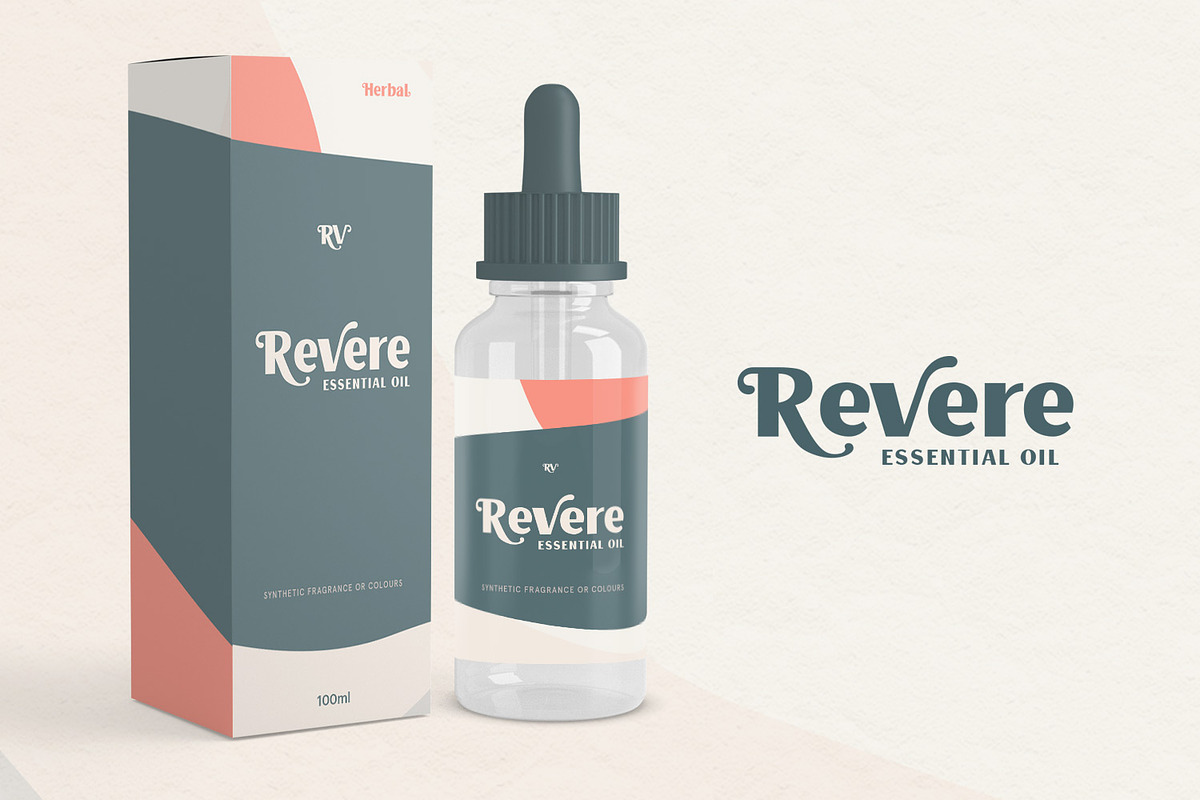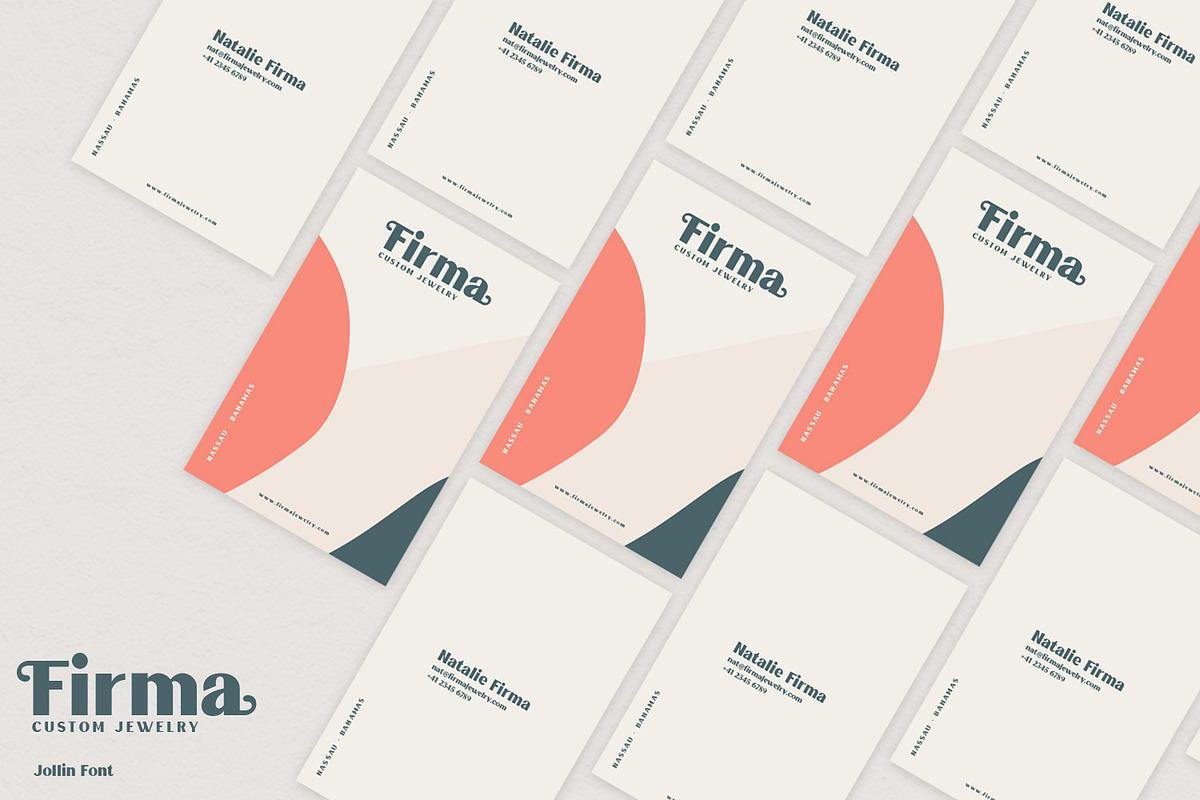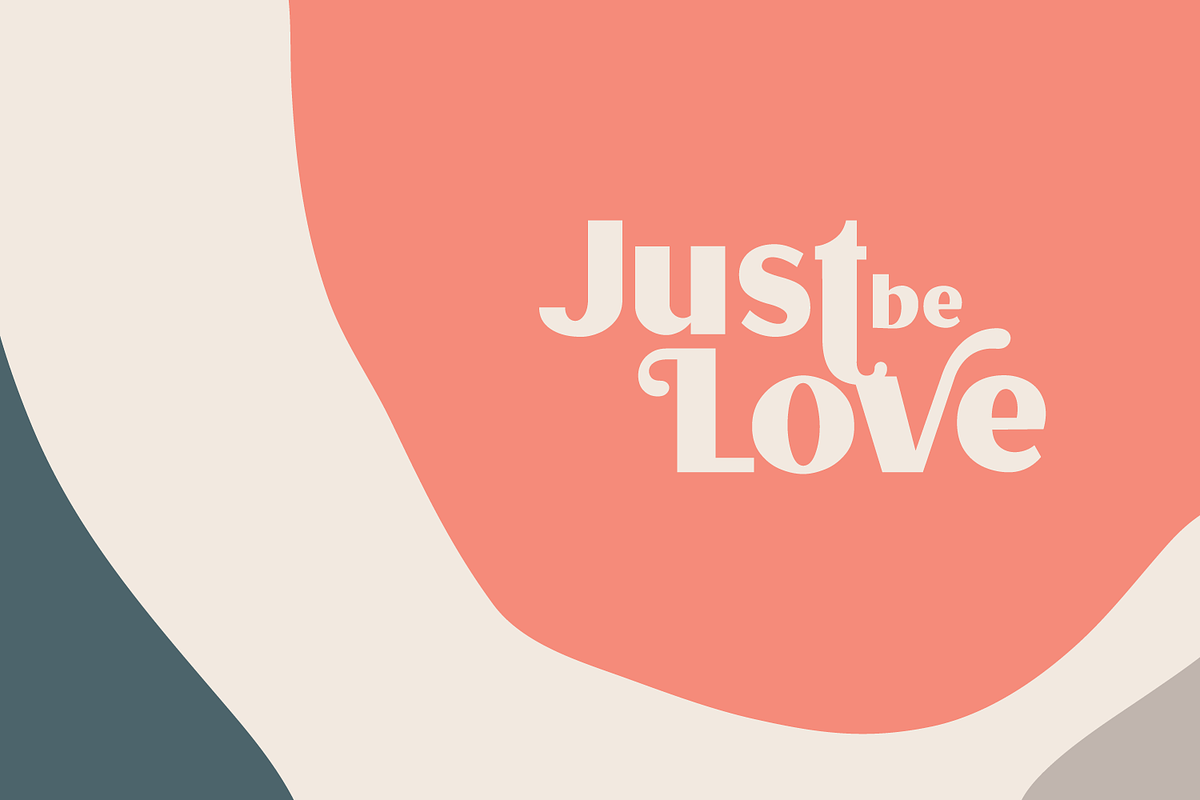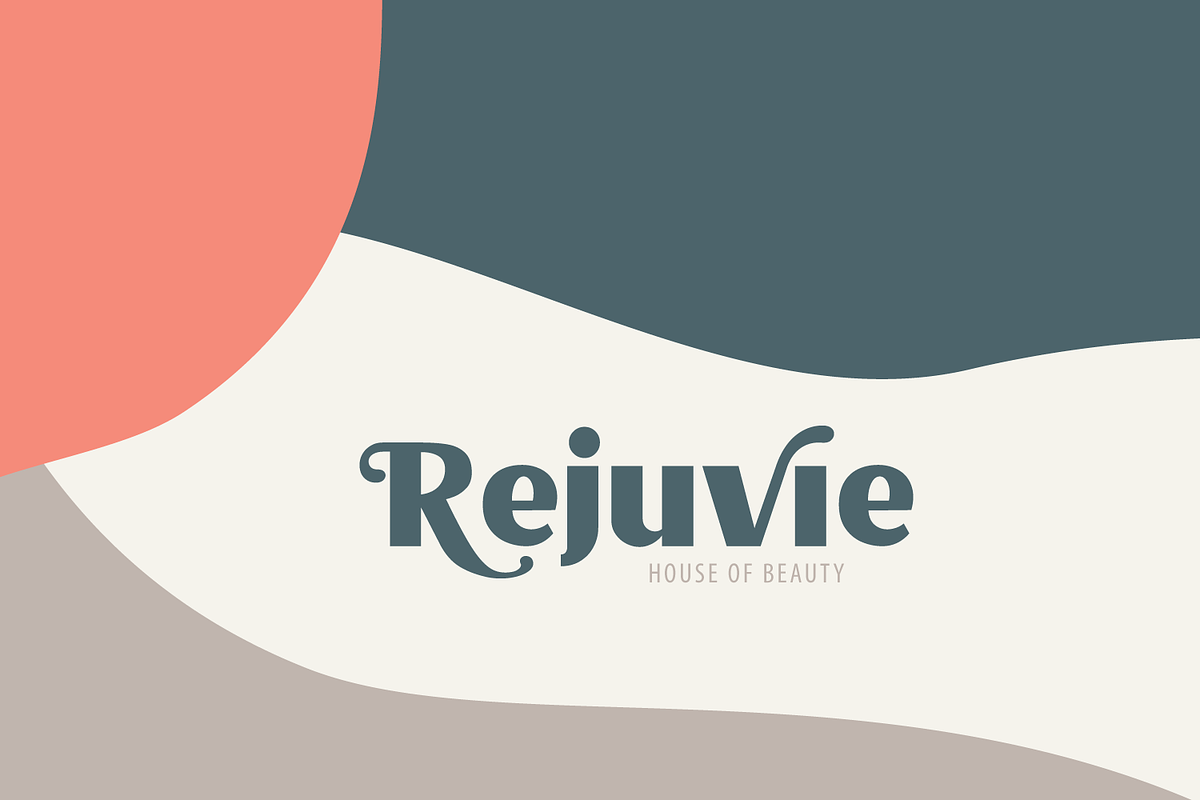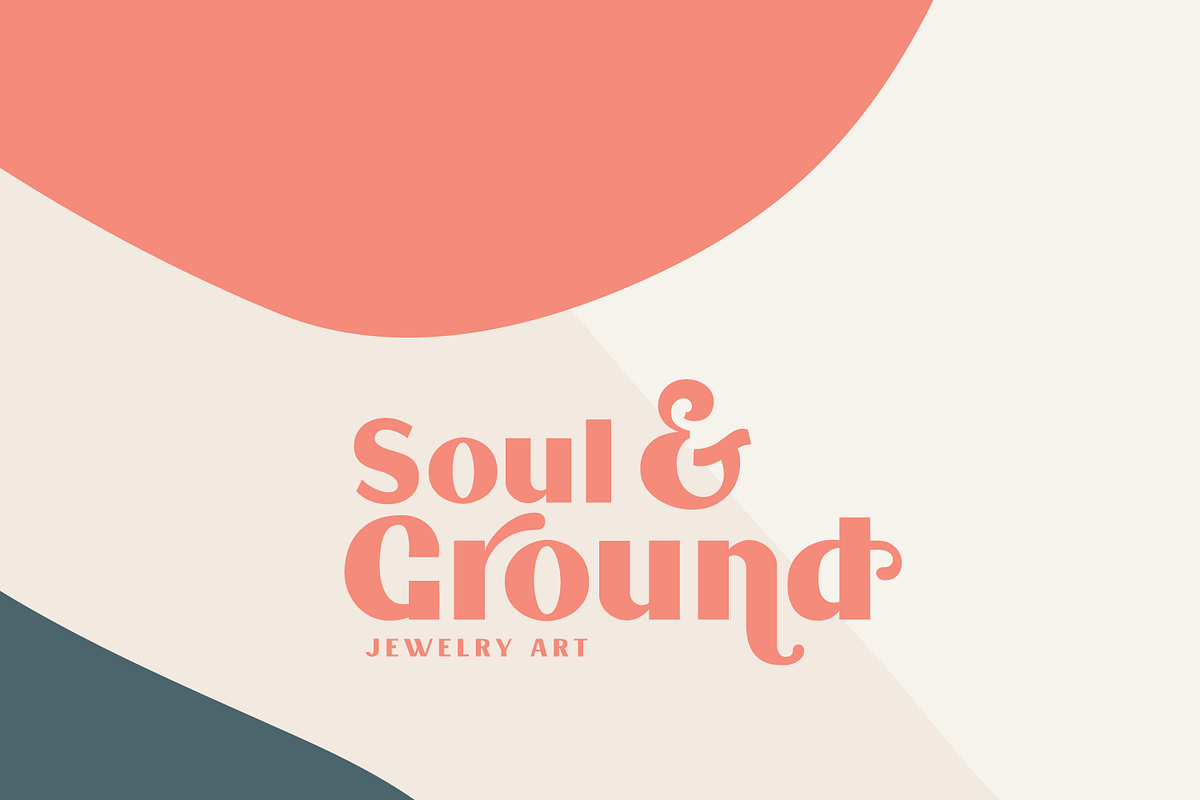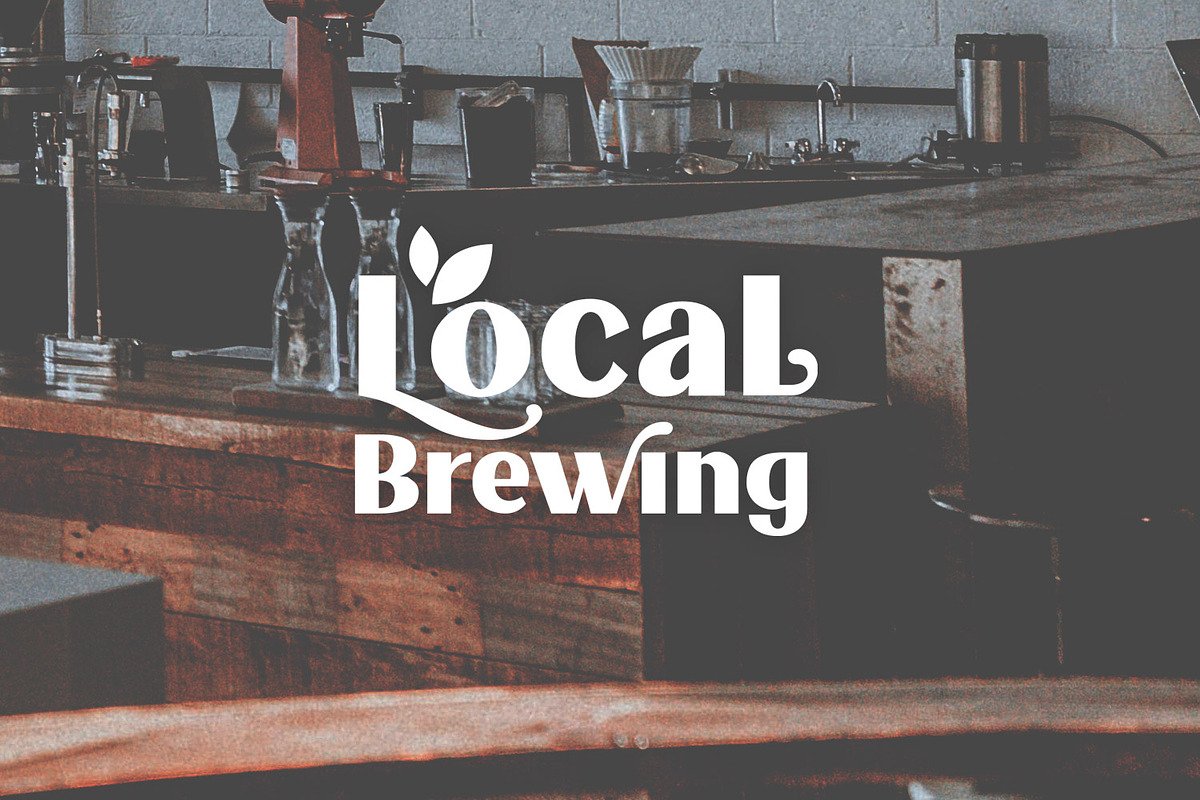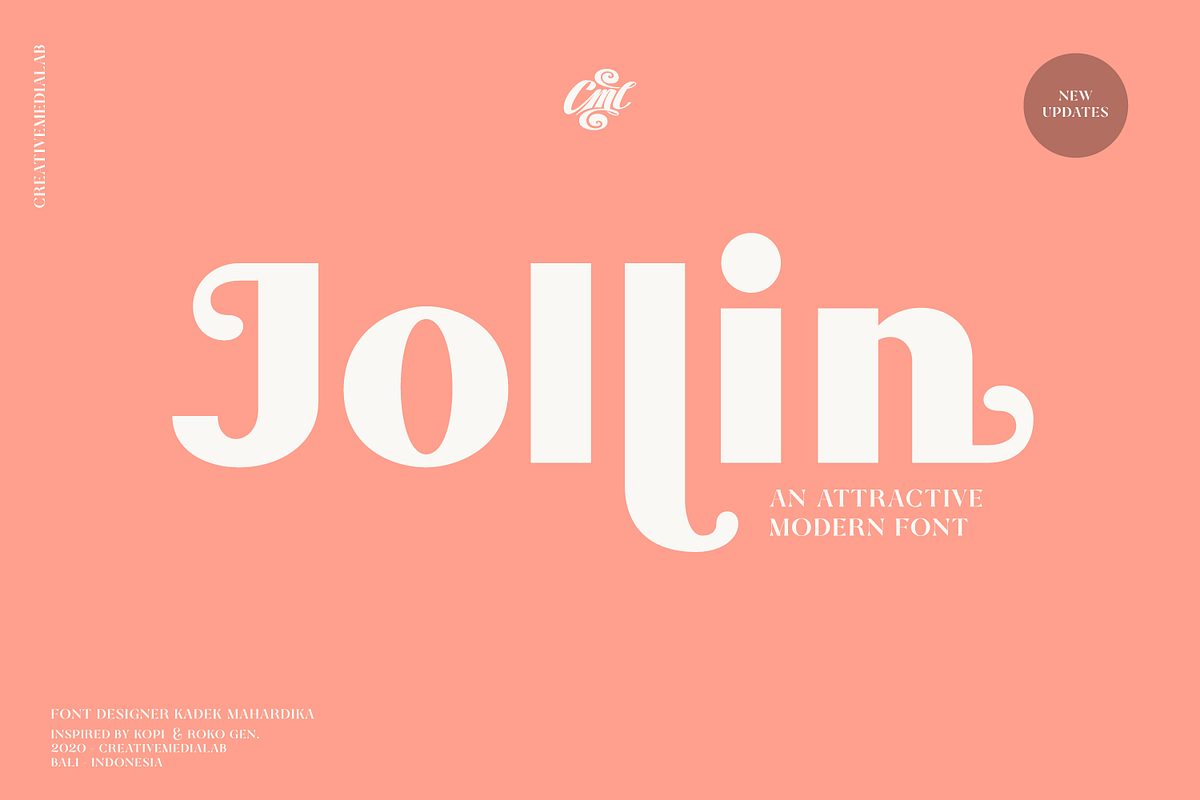
Jollin Font
Jollin - A Pretty Bold, attractive and simple sans serif
Bold and beautiful sans serif available in regular and italic versions, Jollin has ton of alternates that you can use to create a simple but pretty letters, explore your ideas with free illustration background in hires jpg format included in this package. Jollin Perfect for Heading, logo creation, Advertisements, Christmas, Label, business card, branding and more! Get inspired by its fashionable appeal!
Jollin Font by creativemedialab fits naturally into Branding, posters, packaging, typography.